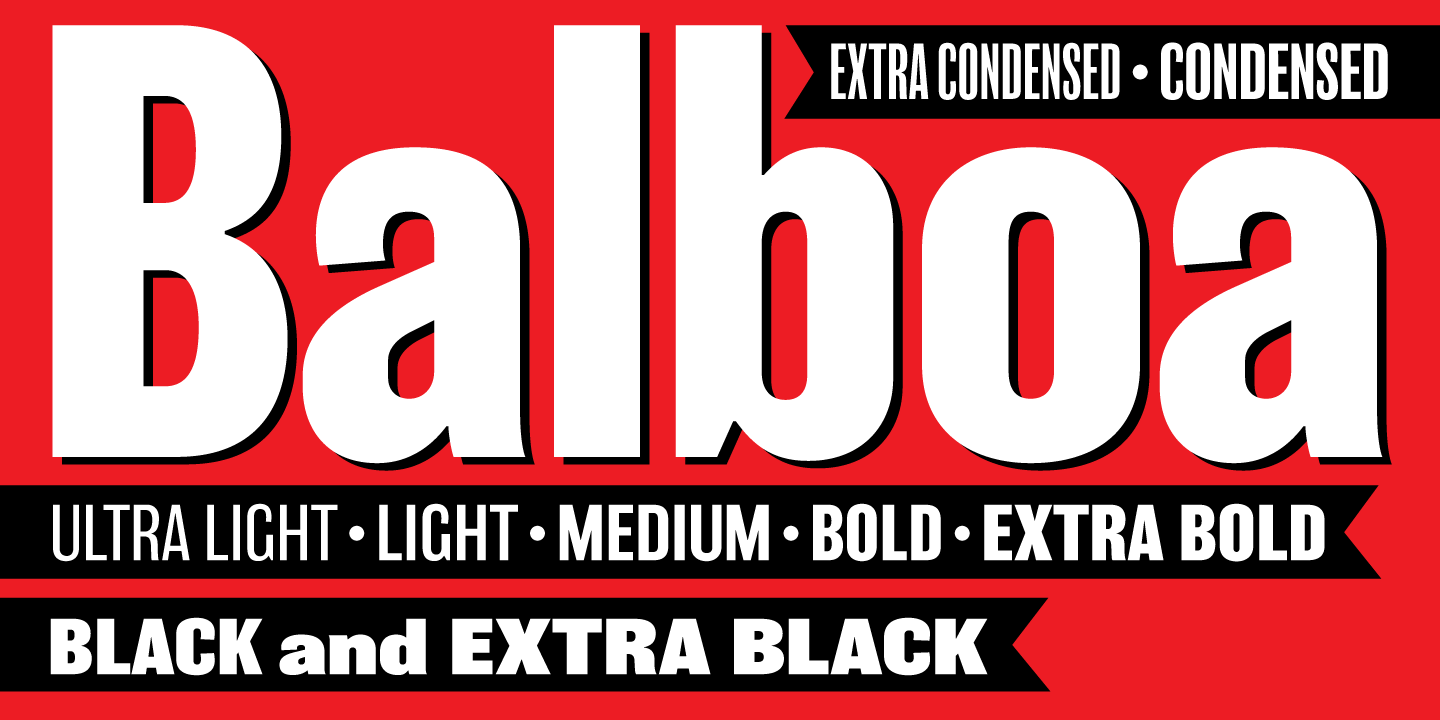
Balboa Font is perfect for boxing gym branding, sports training facilities, fitness motivation posters, athletic apparel designs, championship boxing events, warrior-themed campaigns, strength training materials, combat sports promotions, victory celebration graphics, and inspirational athletic messaging.
What makes Balboa Font so exciting is its fighting spirit that captures the raw determination and unbreakable willpower of champions who refuse to give up. This typeface features powerful, resilient letterforms with strong construction and championship character that embodies the legendary perseverance of underdogs who rise to greatness through sheer determination. The font's inspiring and tenacious character communicates courage and unwavering resolve, making it perfect for brands seeking to motivate audiences through the timeless story of triumph over adversity and the indomitable human spirit that drives champions to victory.
Balboa Font family includes Regular, Bold, Heavy, and Champion weights, along with fighting alternates and victory variations. The family also features special character sets including boxing symbols, championship emblems, and motivational decorative elements that enhance the font's connection to combat sports and inspirational achievement themes.
Balboa Font supports comprehensive character sets including Latin alphabets, numbers, punctuation marks, and special championship symbols. The font's powerfully determined spacing creates maximum motivational impact while ensuring excellent readability across all athletic applications. Its OpenType features include contextual alternates, fighting ligatures, and championship typography options that expand creative possibilities for inspirational design projects.
Professional designers choose Balboa Font for projects requiring authentic fighting spirit and championship motivation aesthetics. The font excels in applications where determination and inspirational messaging are essential, offering the perfect solution for brands seeking to communicate perseverance, fighting spirit, and connection to championship achievements. Its champion character makes it ideal for boxing gyms, motivational speakers, and athletic training organizations.